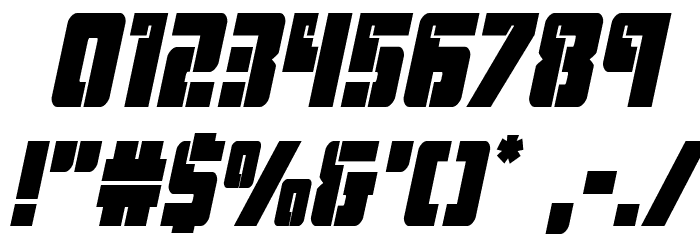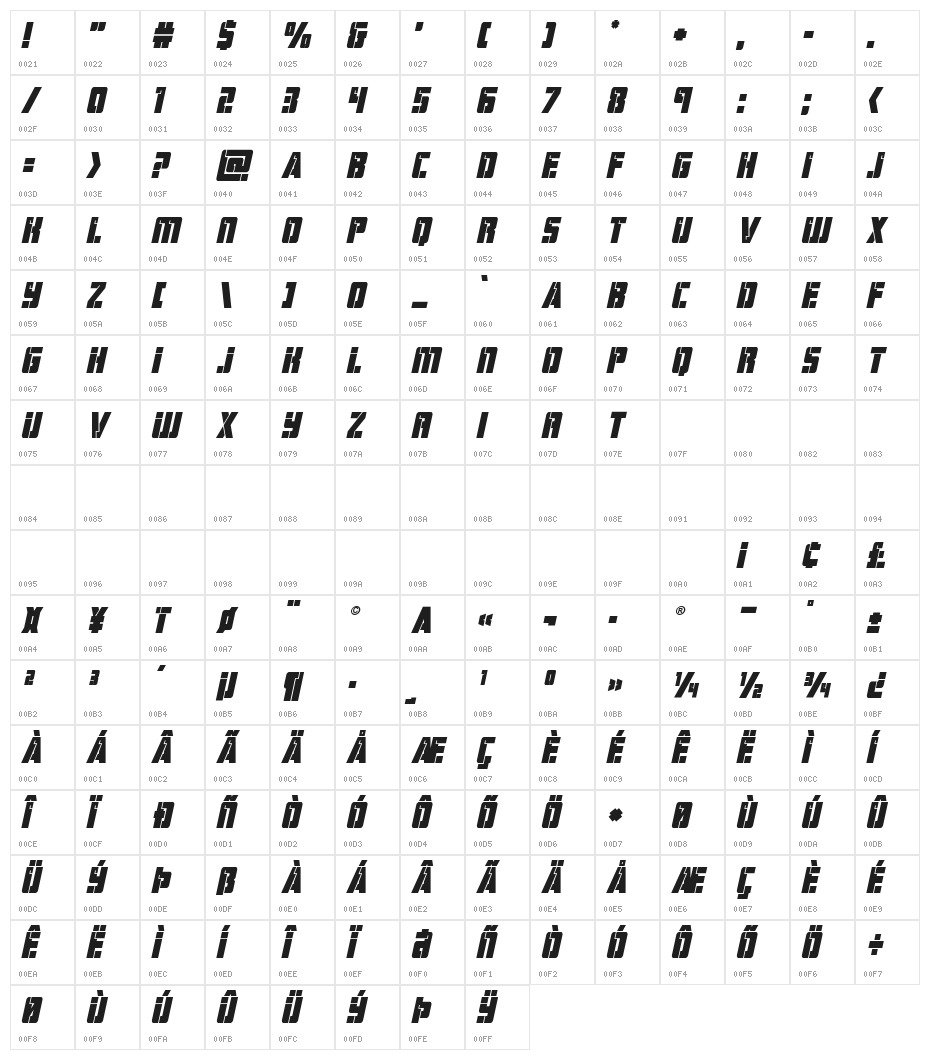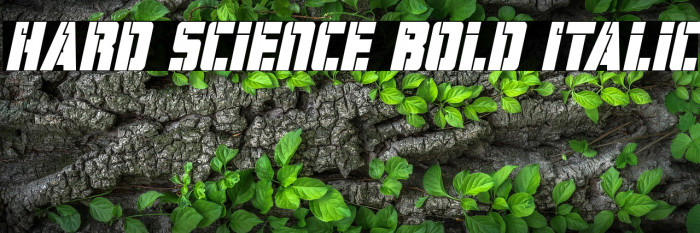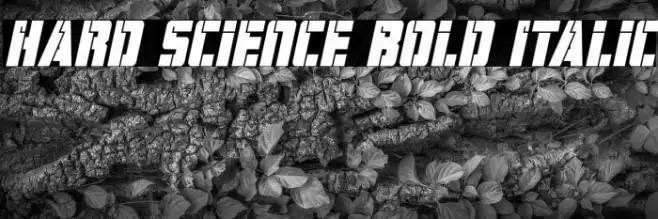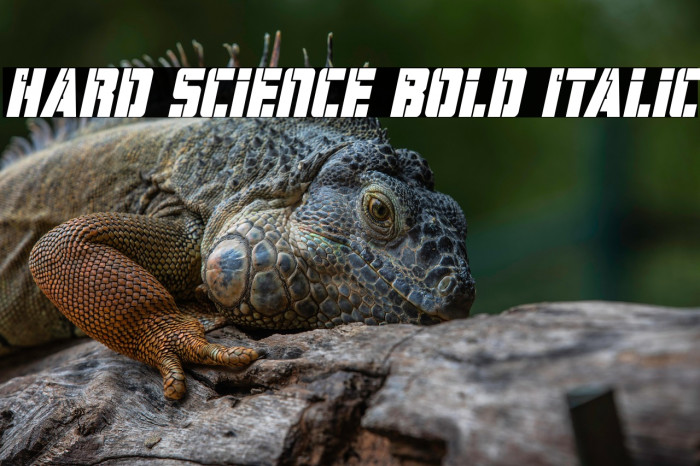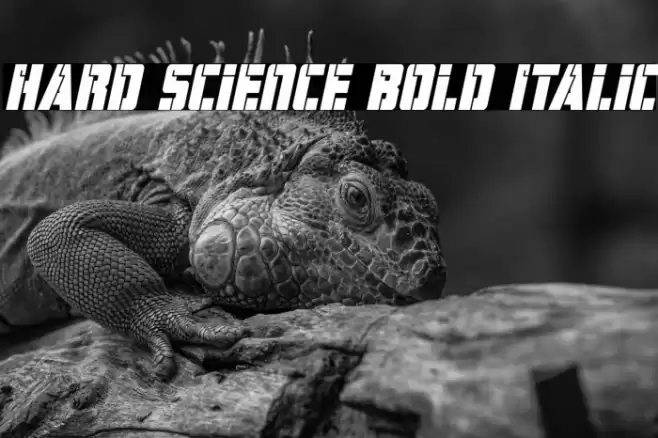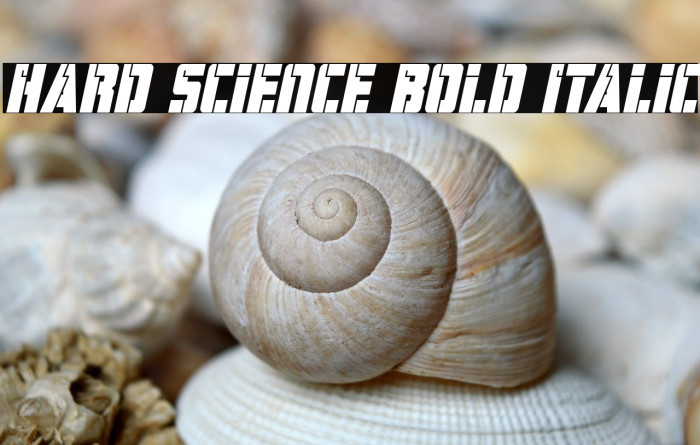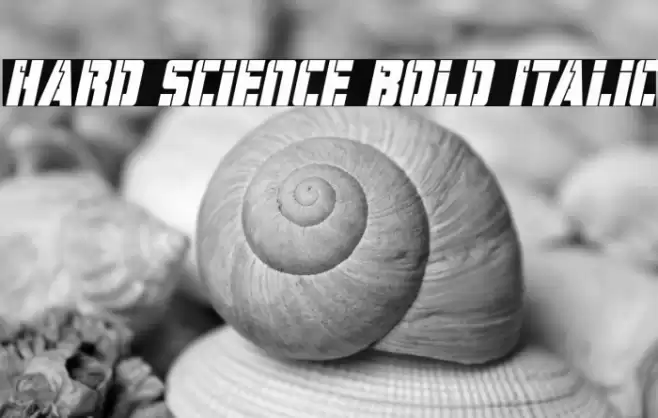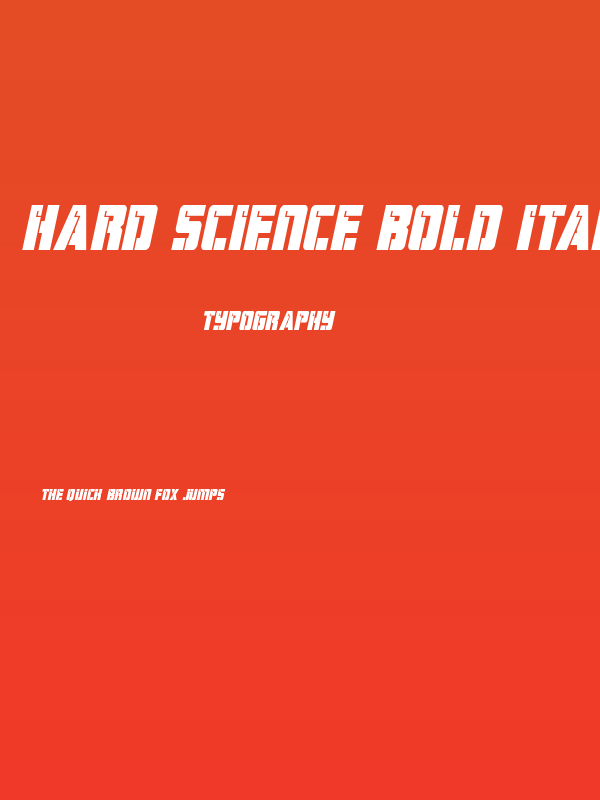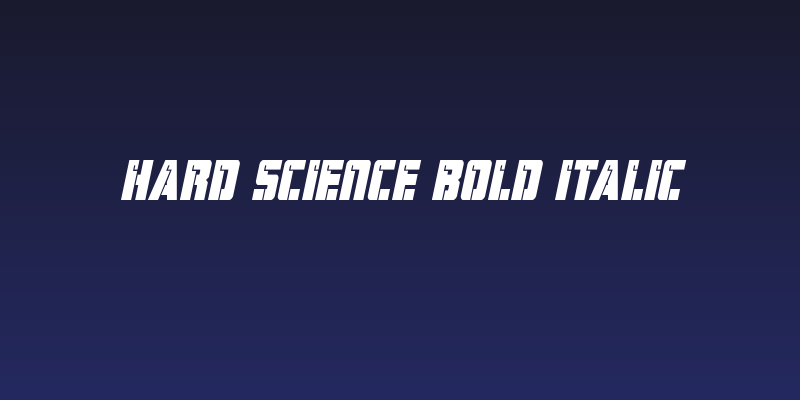
Hard Science Bold Italic Font
Hard Science Bold Italic Description
This font features a bold and italicized style with a futuristic and dynamic appearance. The characters are sharply angled, giving them a sense of motion and energy. The strokes are thick and consistent, contributing to a strong visual impact. The design is geometric, with a slight slant that enhances its modern and edgy look. The uppercase and lowercase letters maintain a uniformity that ensures readability while still being visually striking. The numbers and special characters follow the same bold and angular design, making them suitable for attention-grabbing displays.
| Proposed Projects | Ideal for sci-fi themed projects, technology branding, video game titles, and dynamic posters. |